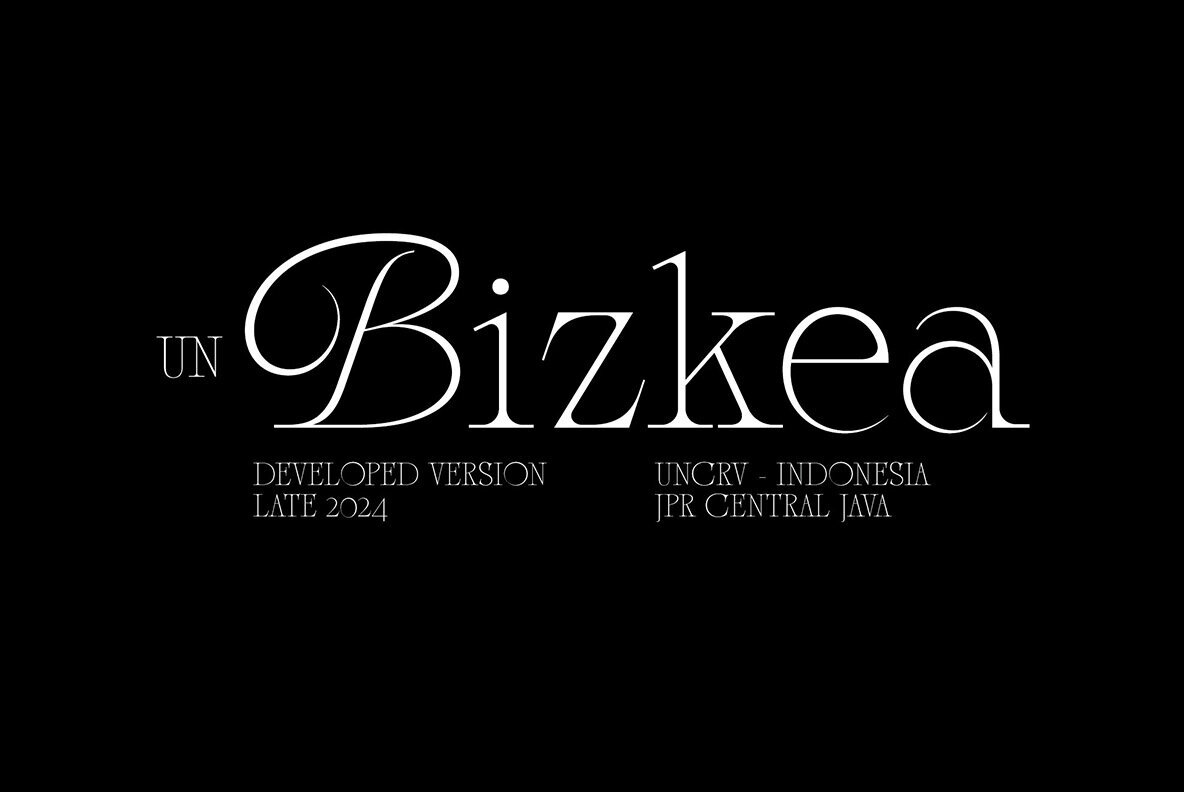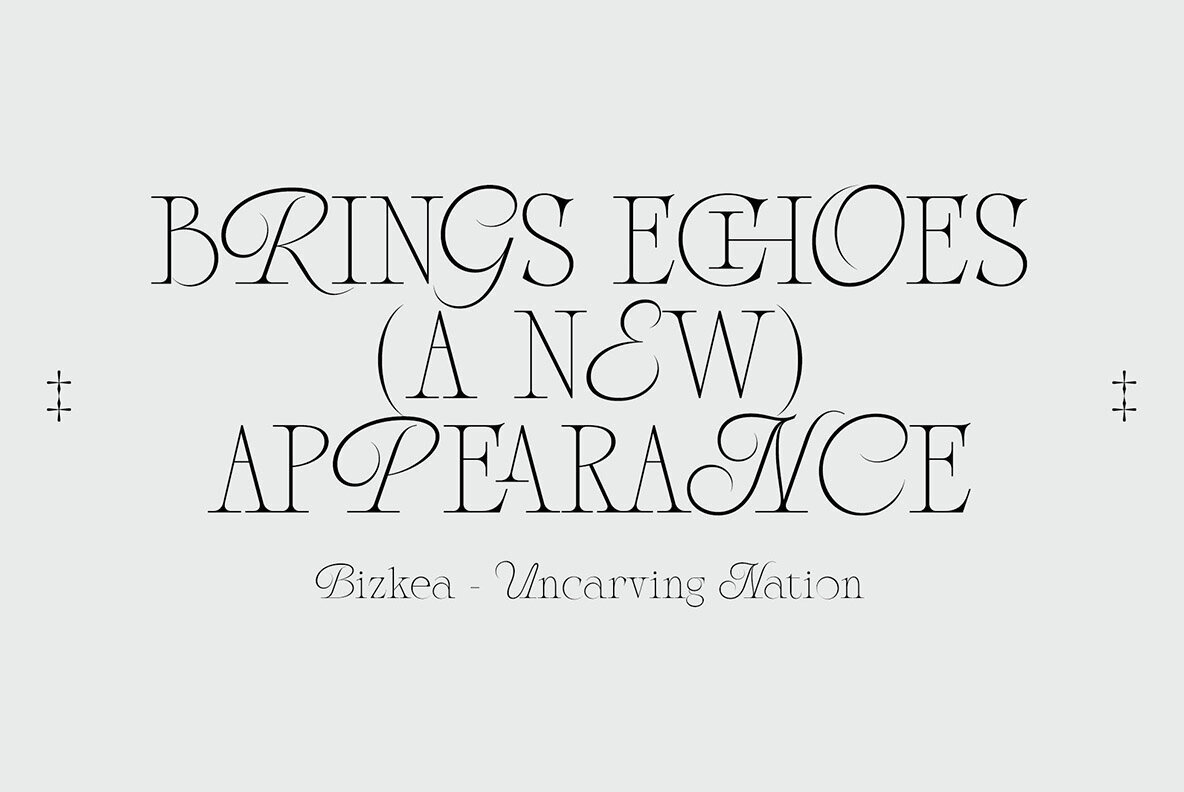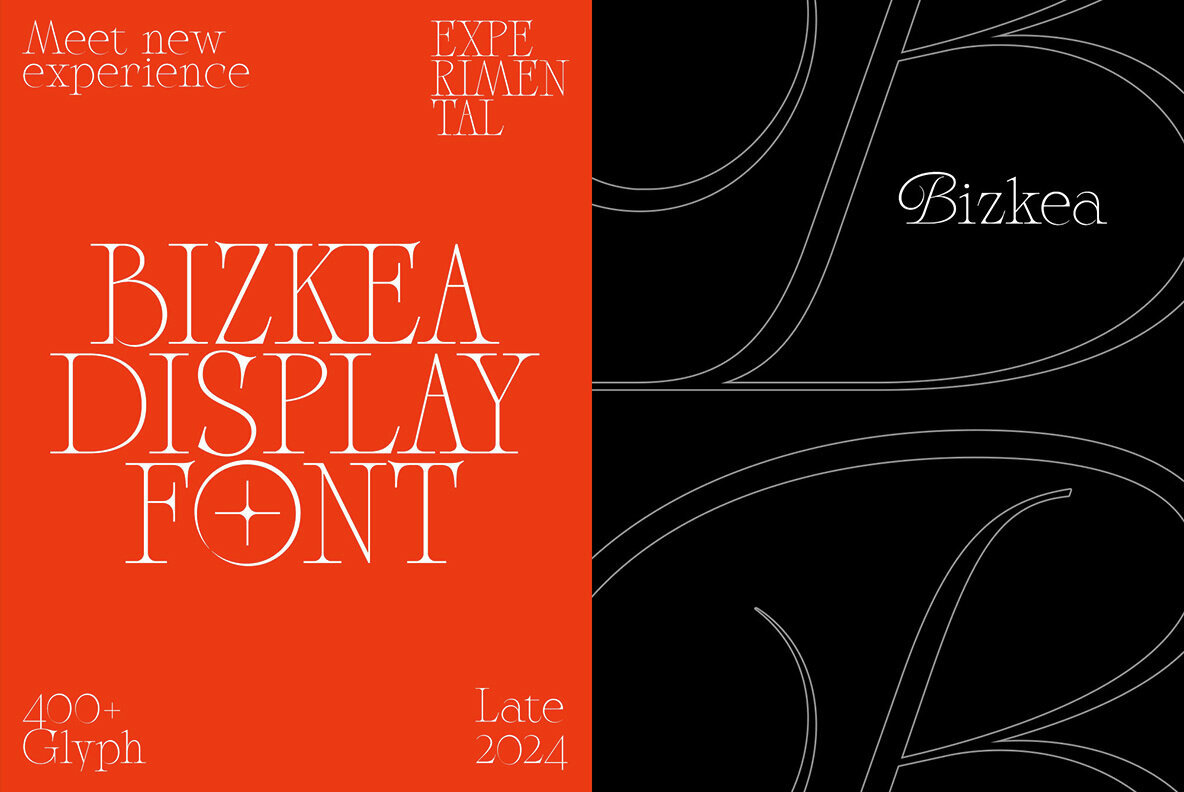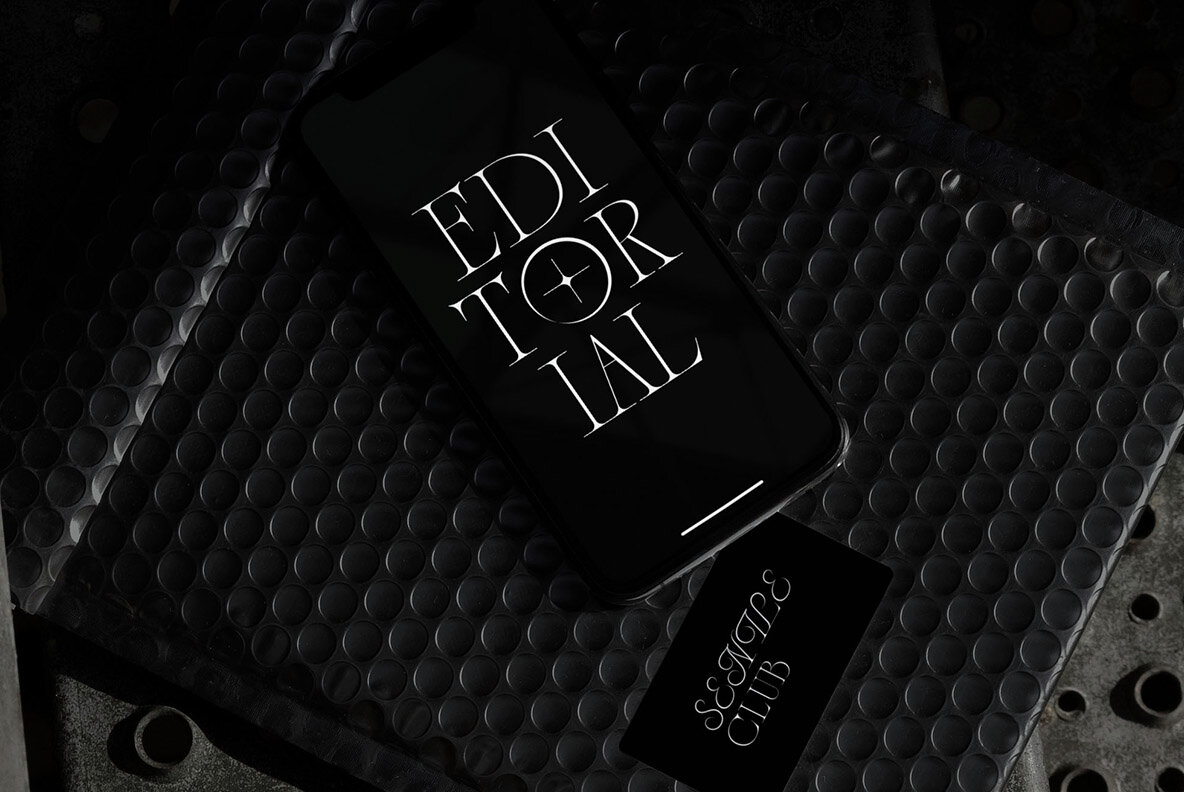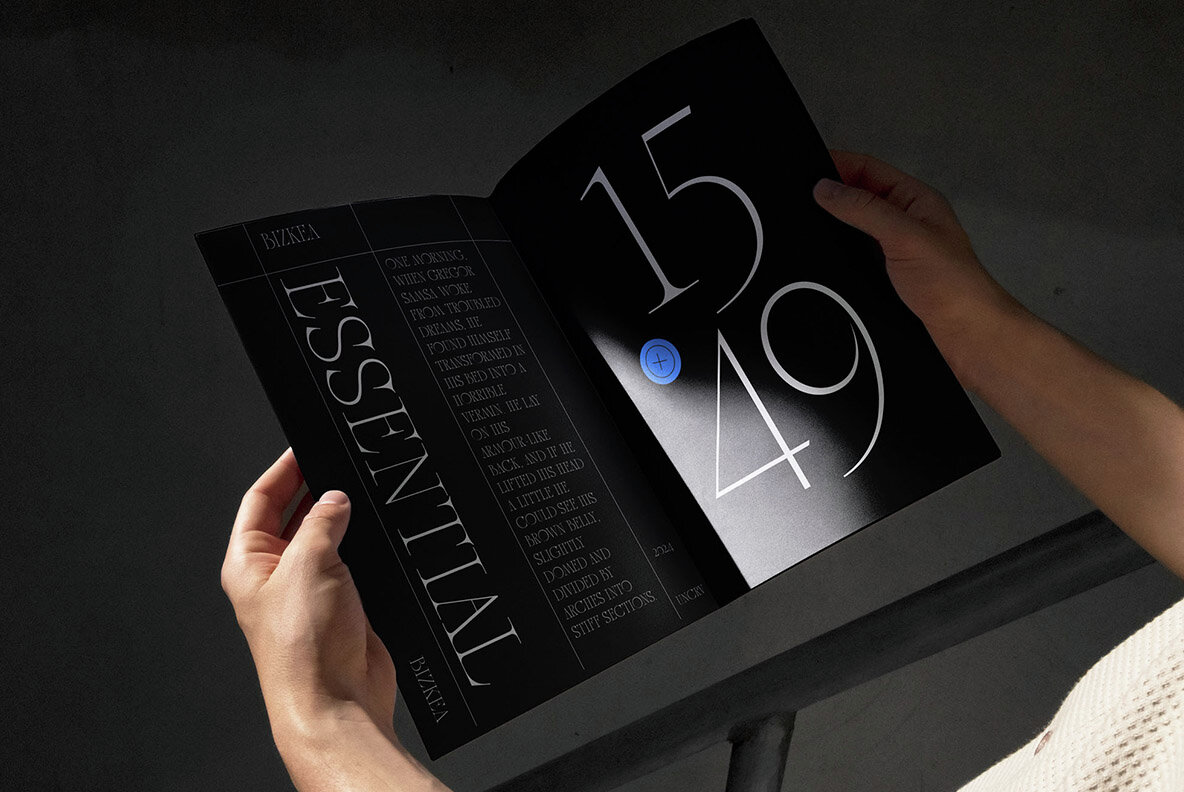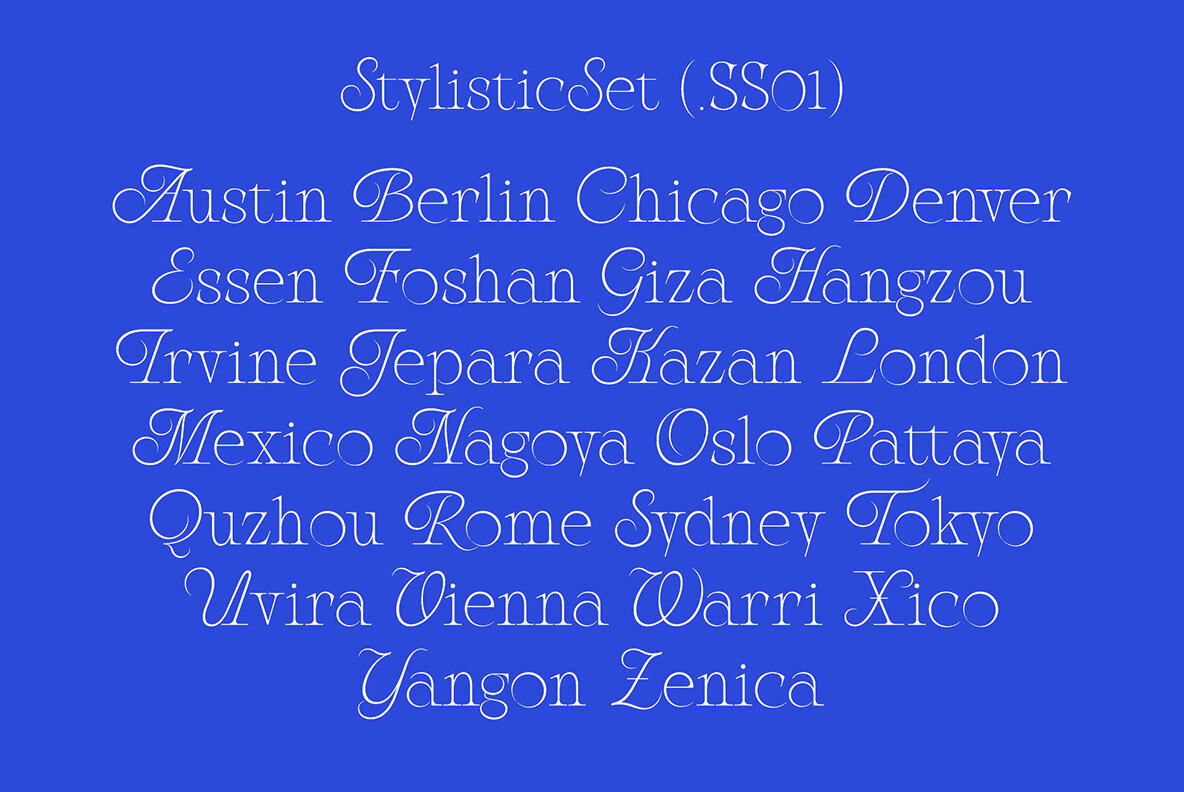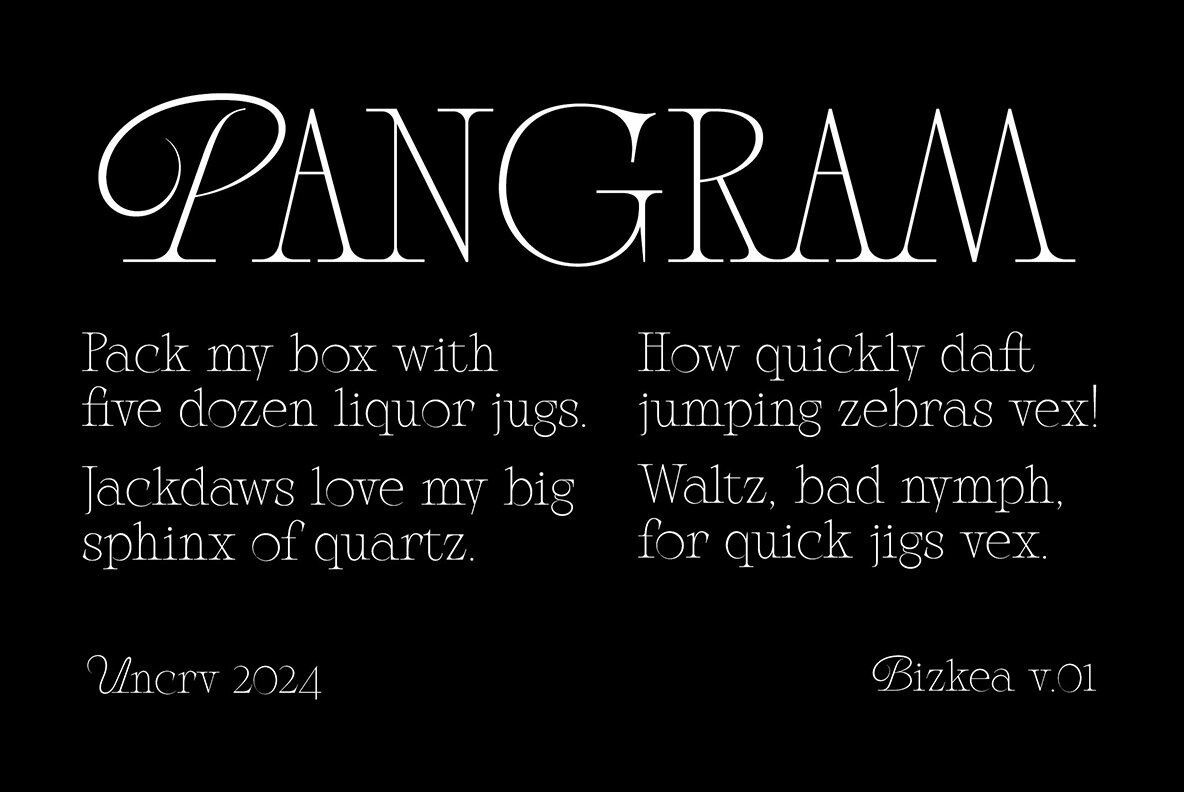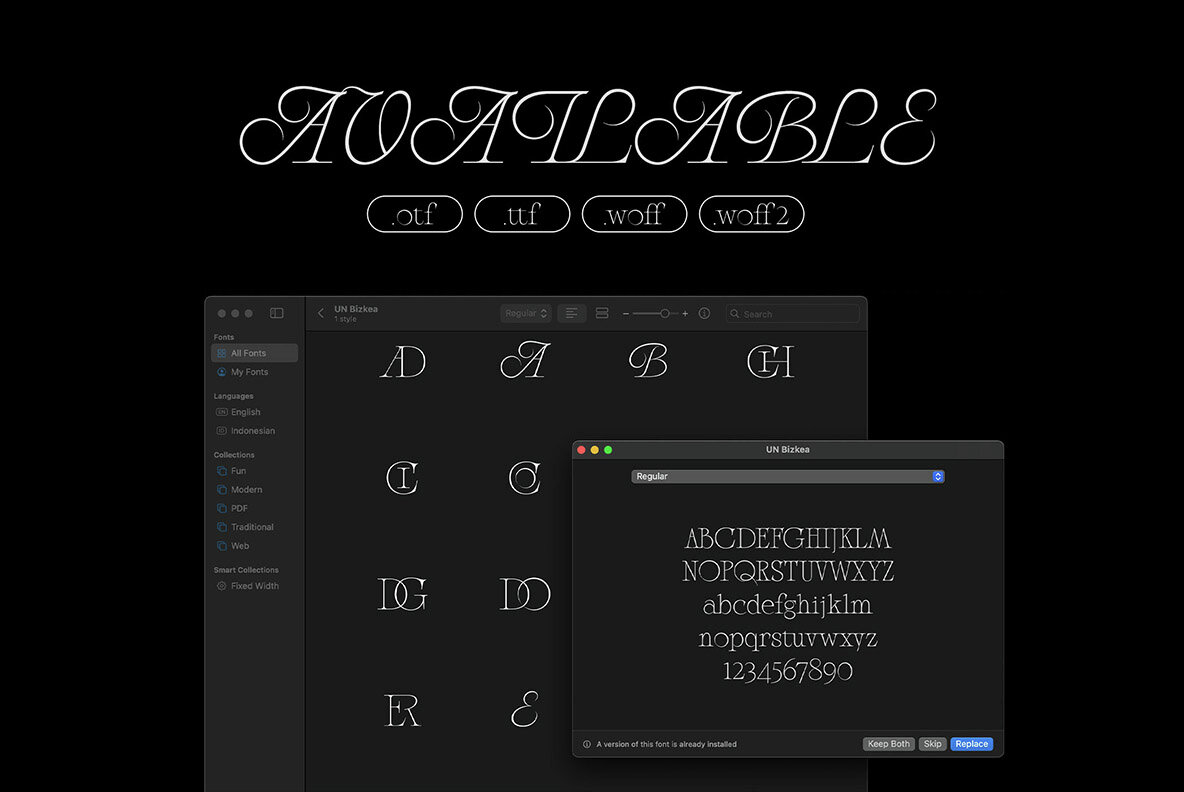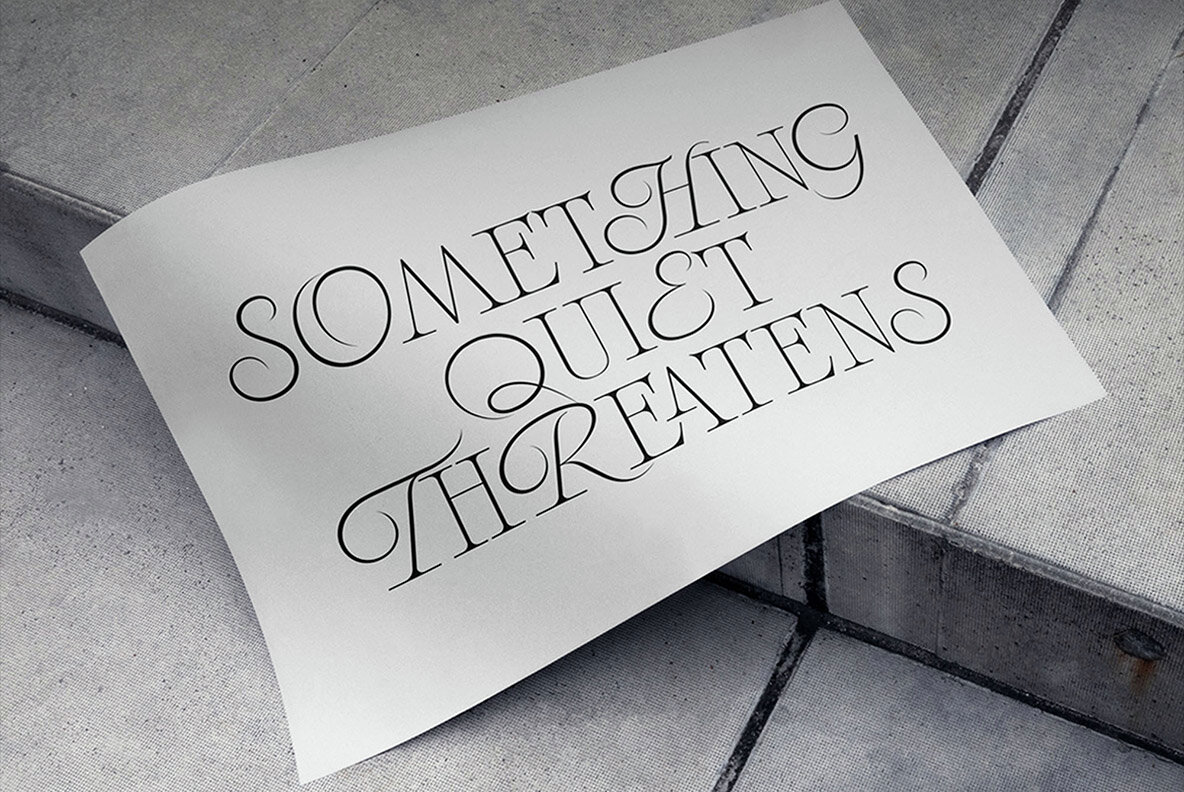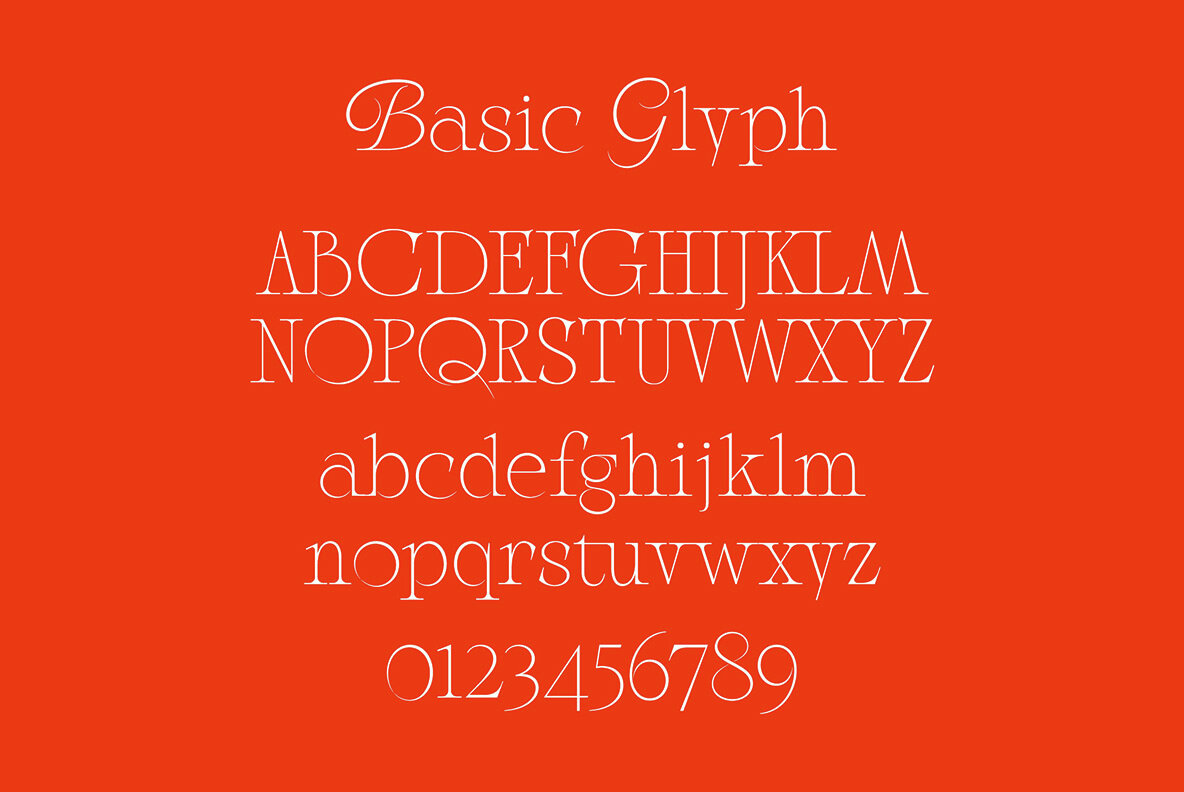
Bizkea Font
UN Bizkea Regular
Bizkea offers a unique twist to your typography collection by artfully blending the classic elegance of Garalde fonts with a modern twist. This display font is designed to captivate and impress, delivering visual richness that thrives in a contemporary design landscape. Perfectly suited for larger sizes, Bizkea shines in headings and titles, making a bold statement in any project. Despite its striking appearance, the font remains versatile, seamlessly adapting to various design contexts, whether for print or digital media. Experience the fusion of timeless elegance with modern versatility through Bizkea.Bizkea: Elegance Meets Modern Flair